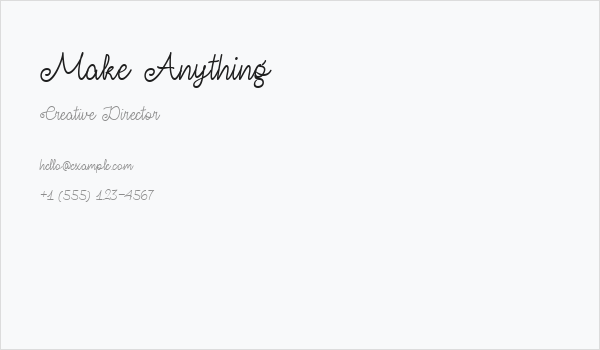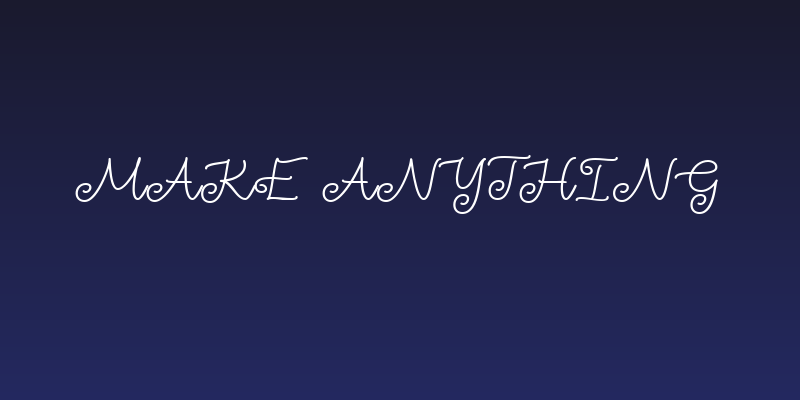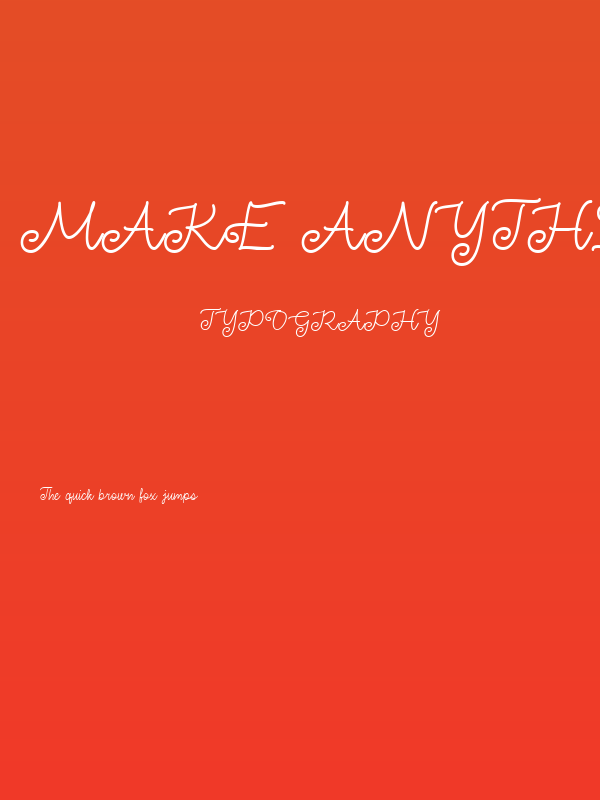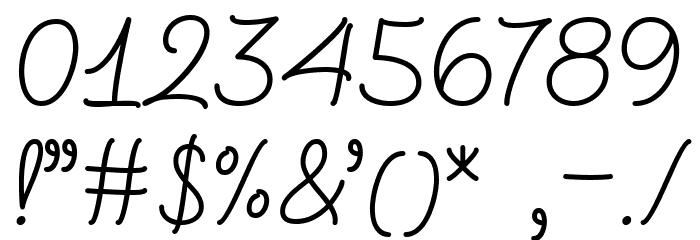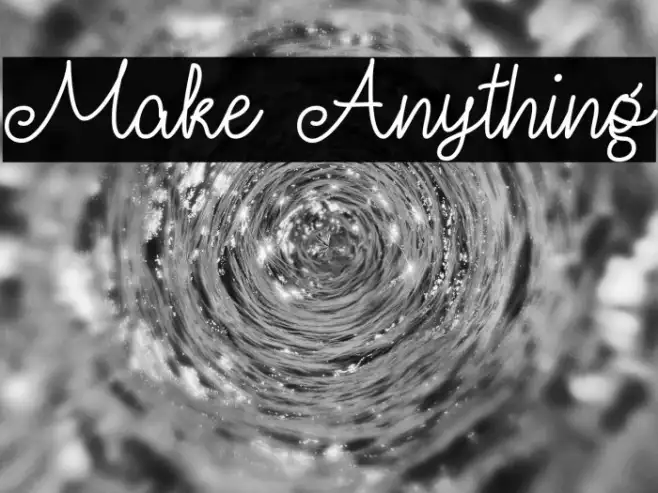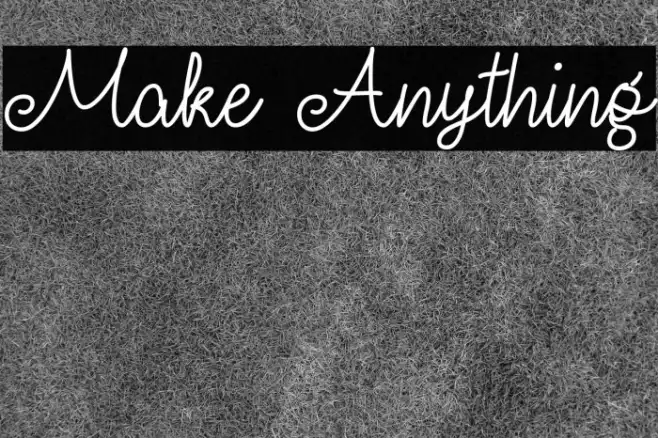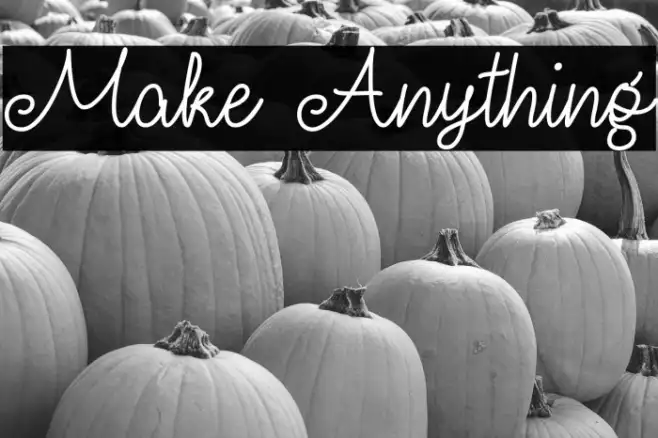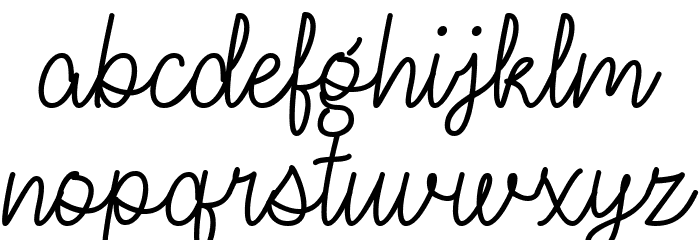
Make Anything Font
Make Anything Description
This font features a whimsical and playful script style, characterized by its flowing, interconnected letters that mimic the fluidity of handwriting. The uppercase letters are adorned with elegant loops and curls, adding a decorative flair. The lowercase letters maintain a consistent stroke width, enhancing readability while preserving the font's artistic charm. The numerals and special characters are designed to match the overall style, ensuring a cohesive look across all text elements. This font's unique personality makes it ideal for creative projects that require a touch of elegance and individuality.